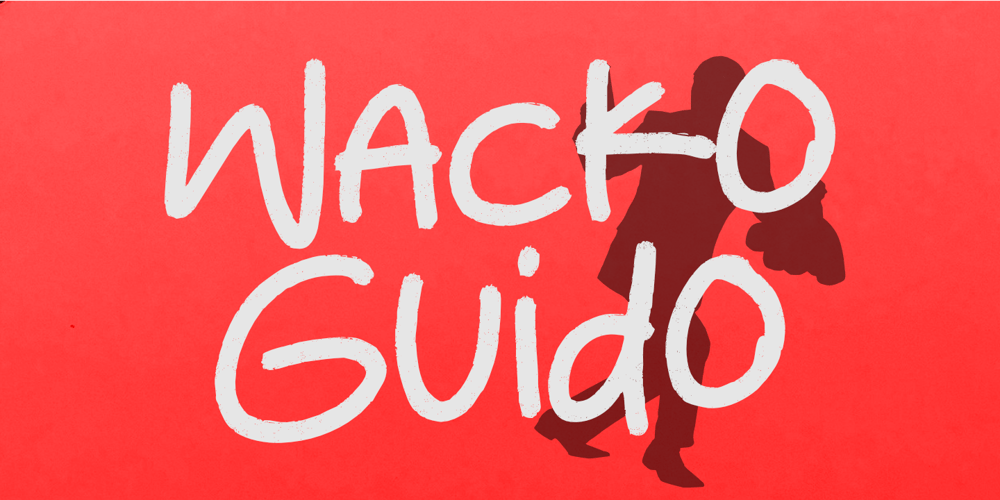
Wacko Guido
Wacko Guido font
Wacko Guido Font Family was designed by Nurul Hidayani and published by Olivetype. Wacko Guido contains 1 styles and family package options. Introducing Wacko Guido, the quirky and charismatic handwritten brush font that is bound to turn heads. With its unique style, this font is perfect for creating eye-catching posters that will captivate your audience at first glance. Its playful yet professional design allows it to seamlessly blend into any branding project, giving your company a distinctive and memorable touch.Wacko Guido Font features : Standard Latin Numbers, symbols, and punctuations Multilingual Support. Fully accessible without additional design software Simple Installations Works on PC & Mac Thank You.